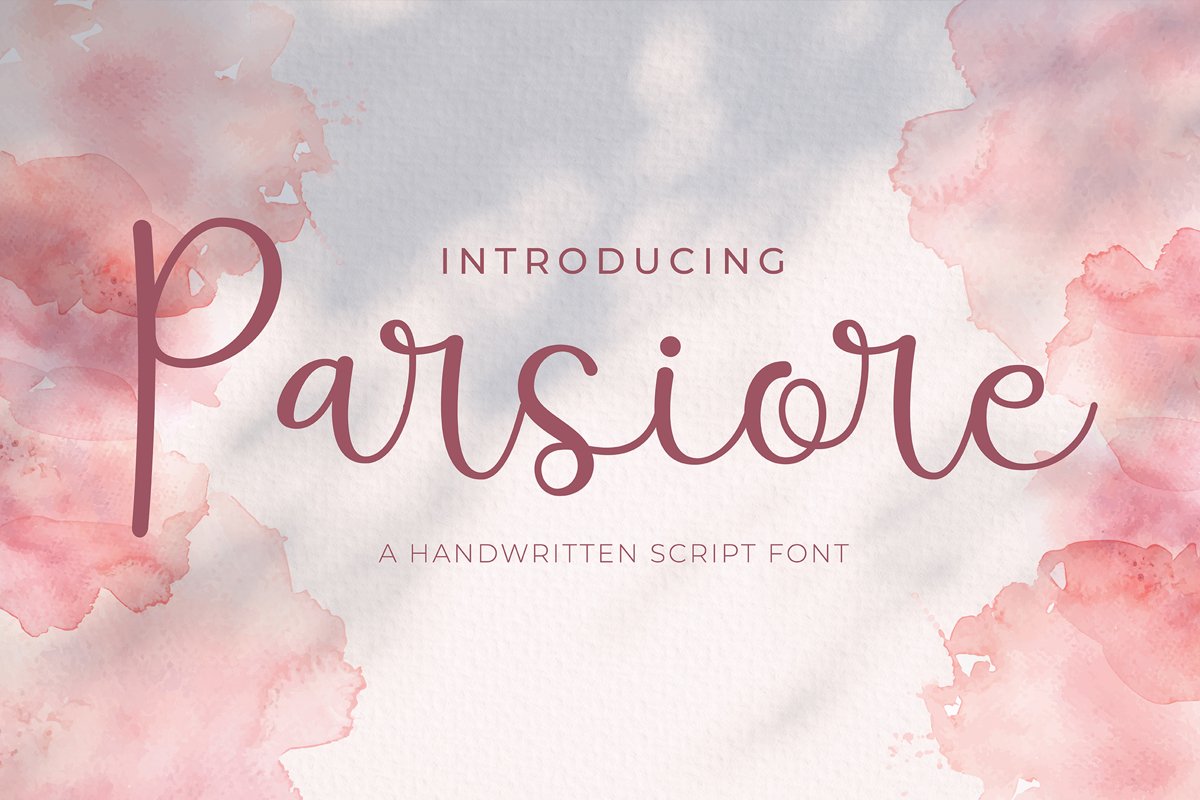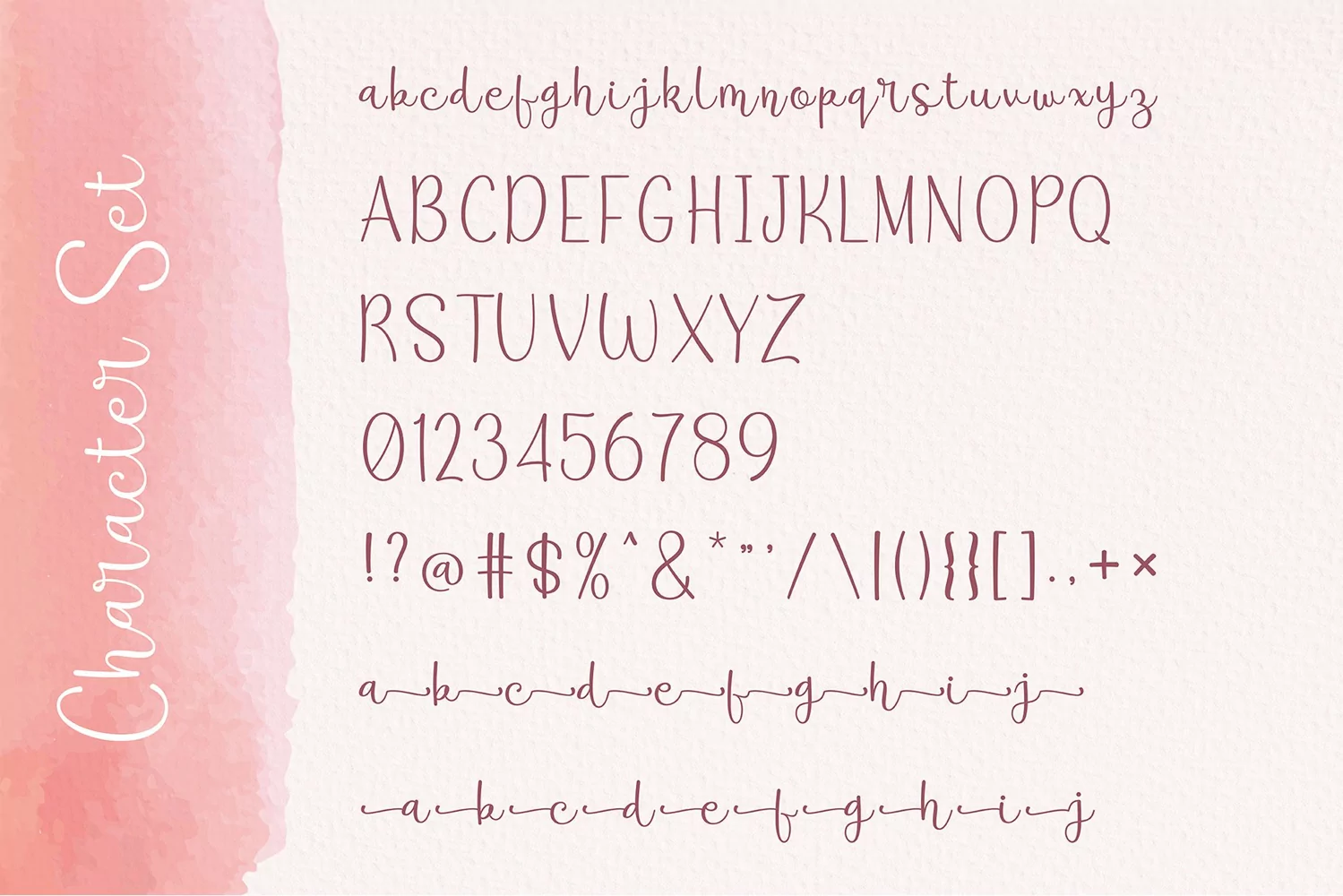
Parsiore is a modern script typeface. Perfect for display, branding, poster, logo, logotype, business card, crafting needs, wedding needs, packaging, merchandise, and many more.